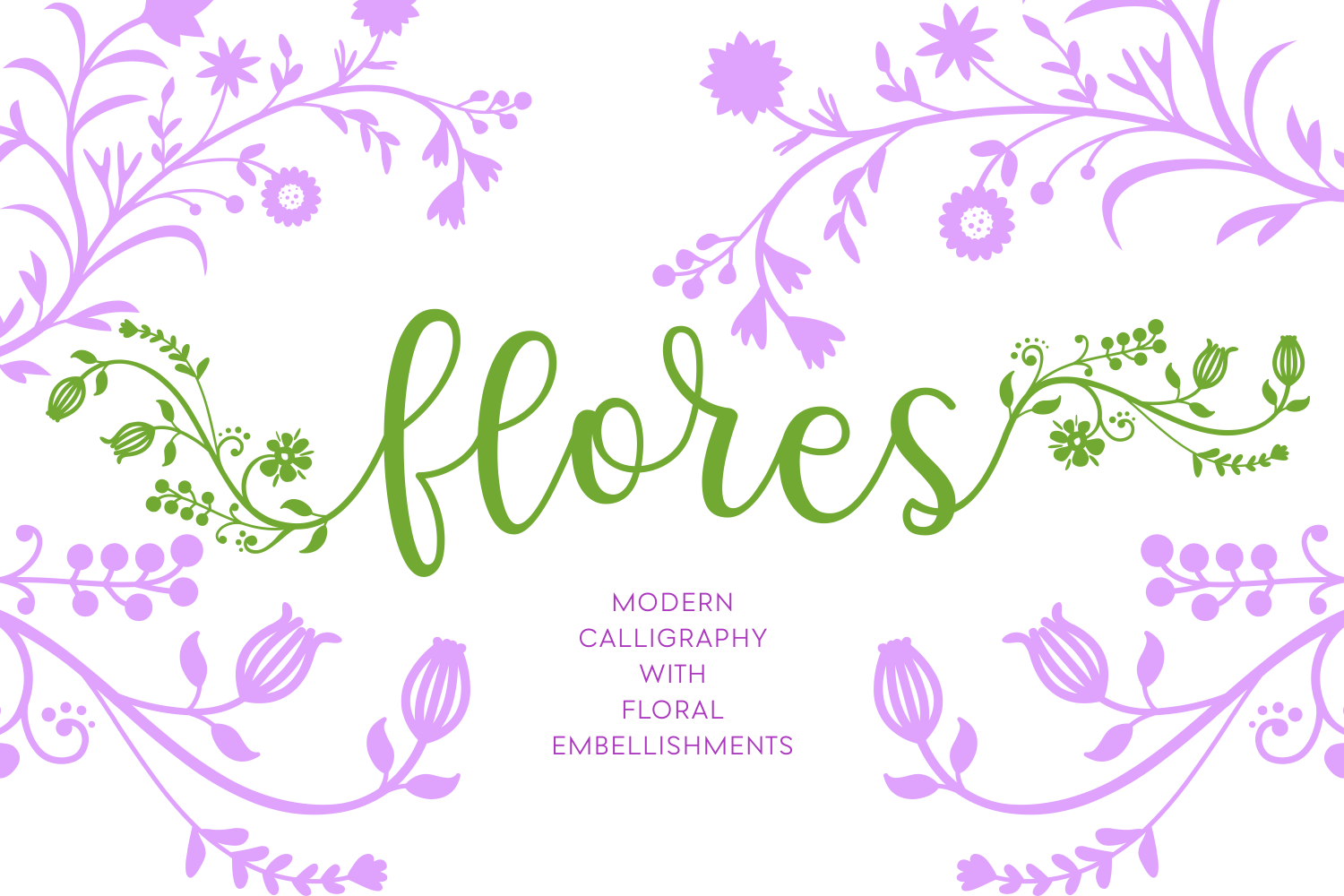
Flores: A Modern Calligraphy Font with Floral Swashes
Imagine a font that doesn't just spell out words, but weaves them with the delicate beauty of nature. That's the promise of Flores, a modern calligraphy typeface where elegant floral swashes are seamlessly integrated into the letterforms themselves. The result feels incredibly organic and polished, as if each character was hand-drawn with a flourish.
This isn't just another script font. Flores is a design asset built for creators who want to add a touch of refined artistry to their work. The integrated swashes eliminate the hassle of manually adding decorative elements, giving you a cohesive and beautiful result right out of the box. Whether you're designing a brand identity or crafting social media graphics, this premium font provides a foundation of elegance.
Where Flores Truly Shines
The versatility of this creative font makes it a valuable tool for a wide range of projects. Its blend of modern calligraphy and natural decoration is perfect for:
Tips for Using This Display Font Effectively
To get the most out of Flores, consider a few practical design principles. First, always test for readability, especially at smaller sizes. Its ornate style is best suited for headlines, logos, and short phrases rather than lengthy body text. Pairing it with a clean, simple sans-serif font or a classic serif font creates a beautiful contrast that ensures your message remains clear while still looking polished.
Think about the mood of your project. Flores exudes a sense of romance, elegance, and organic charm. It’s a natural fit for designs related to beauty, nature, weddings, and luxury goods. Before finalizing your font choice, review the full character set to see all the swash options available. This allows you to tailor the flourish to suit the specific composition of your layout.